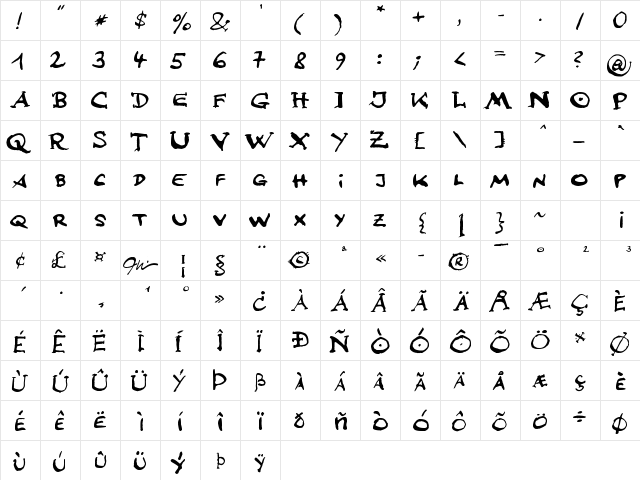
johnFsebastian Lettering Regular
Design Context for johnFsebastian Lettering Typeface
johnFsebastian Lettering is a composed and adaptable typeface that performs quietly and consistently across a wide range of design contexts.